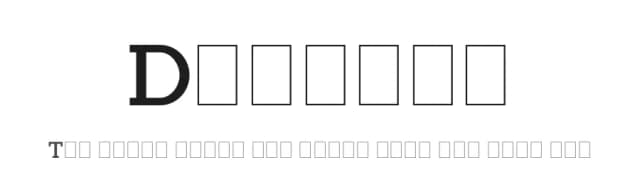
About Flamante Cairo Font
Flamante Cairo is a family of 8 typographies with thick square serifs of the slab type, also known by the Egyptians, which are released with four weights: Light, Book, Medium and Bold and their corresponding italic versions. They include the Bitcoin symbol (Ligatures: b#)
| Designer | Fernando Haro |
Flamante Cairo Font
by deFharo